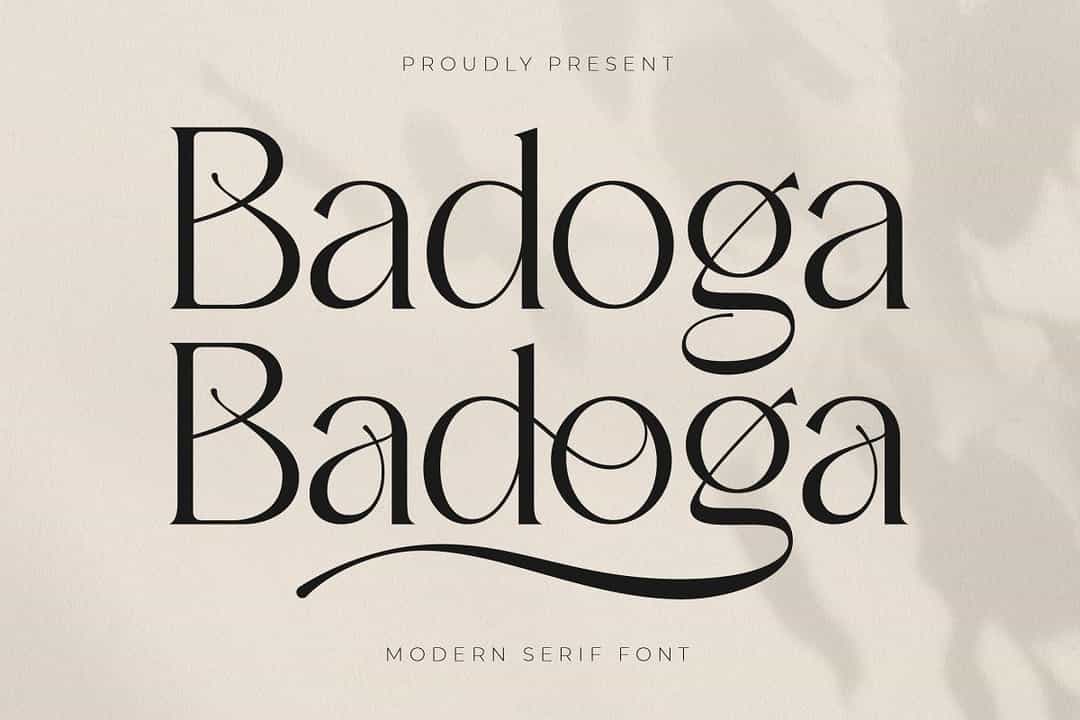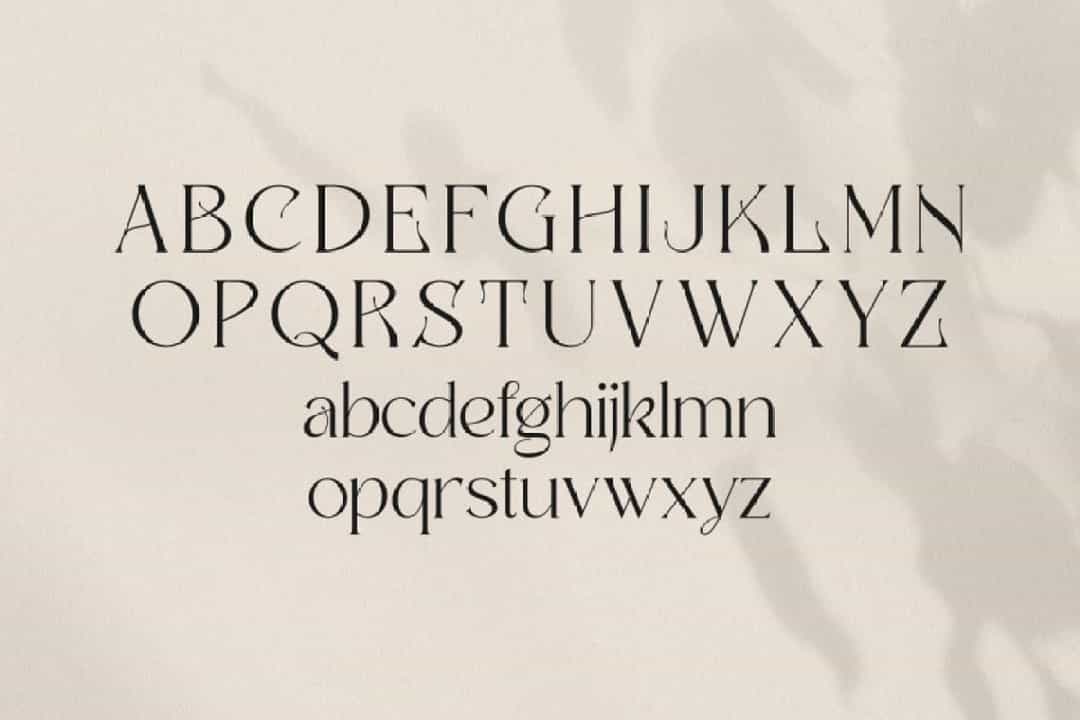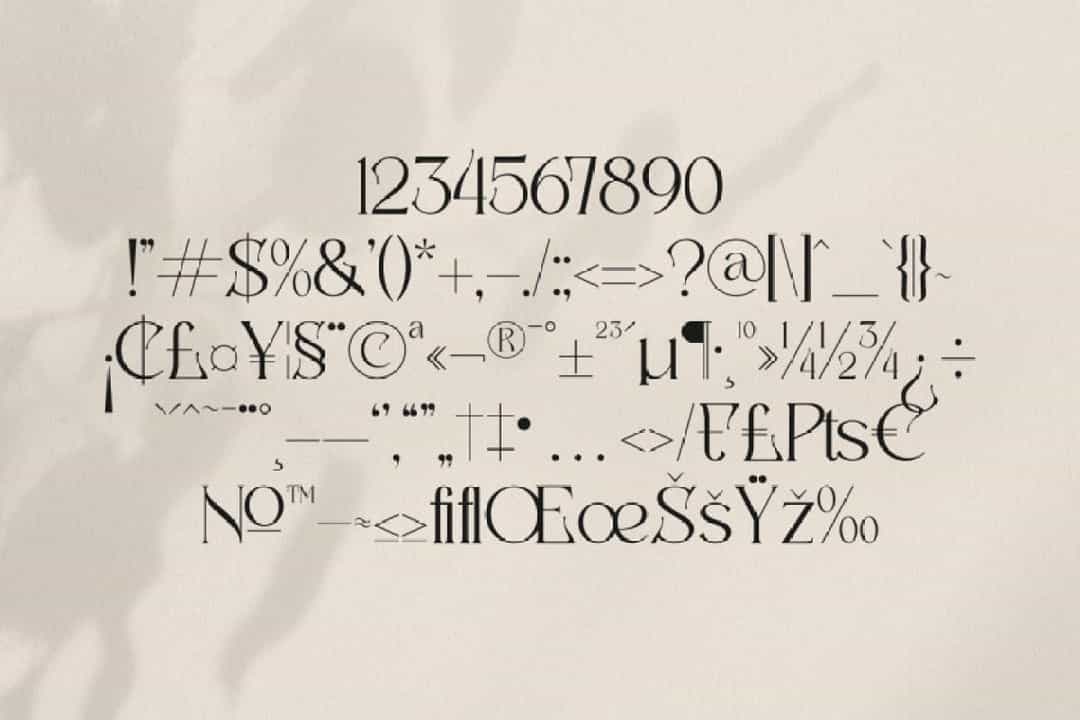
Badoga Serif font, designed by Storytype, is an elegant modern and classic serif font with its own distinct style and look. Perfect for logo design, book or film adaptations, fashion label clothes, magazines lettering or quotes this typeface has everything needed to be used successfully in many applications.